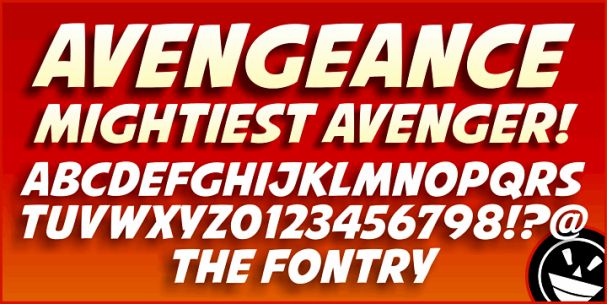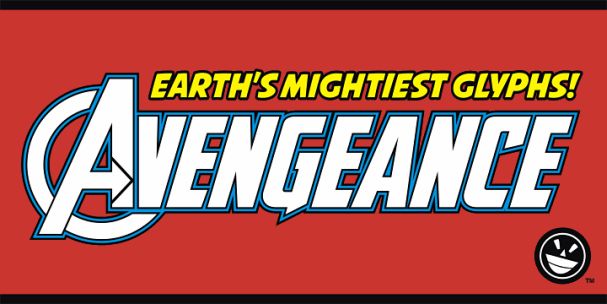
Avengeance Font
Avengeance Font is famous for its text generation function. This is also known for its copy and paste function and it is similar to avenger font. It’s miles similar to neither strictly geometric in stock; its types are created in fact so every man and the girl man or woman is rapid and without hassle recognized. It‚Äôs designed to make the whole customers are without problem the usage of it.
The choice of the right font administrative center artwork is as big as consists of billabong font or someone intelligently to a layout. Avengeance Font Free It has an immoderate, near the tremendous look and is extensively recognized for finishing performing leaders, on the problem of a hint of splendor to logos and which incorporates sophistication to signal designs. It exists to useful beneficial useful resource you to transport duties off of your everyday listing and go along with the glide on. It appears as an optima font that may be used as an alphabet tattoo and language supergirls.